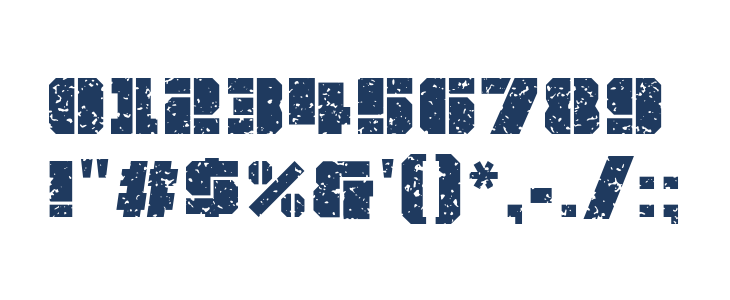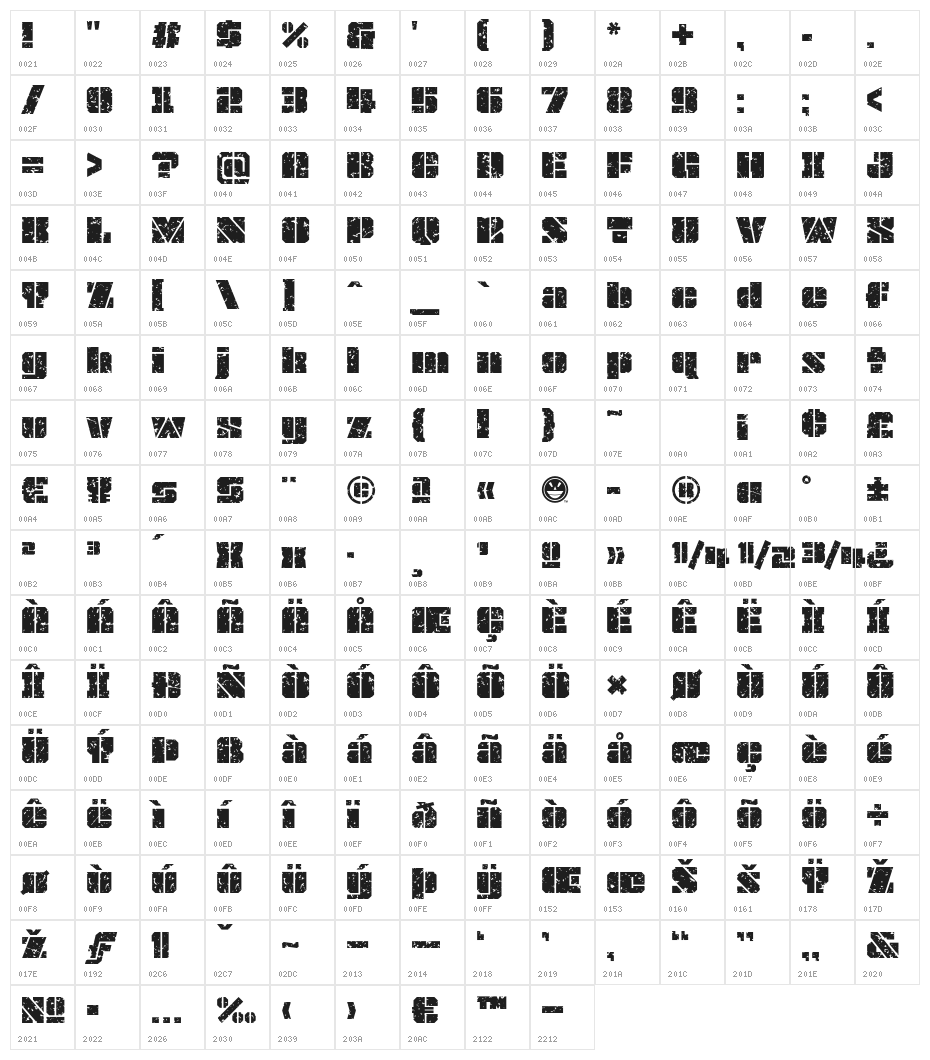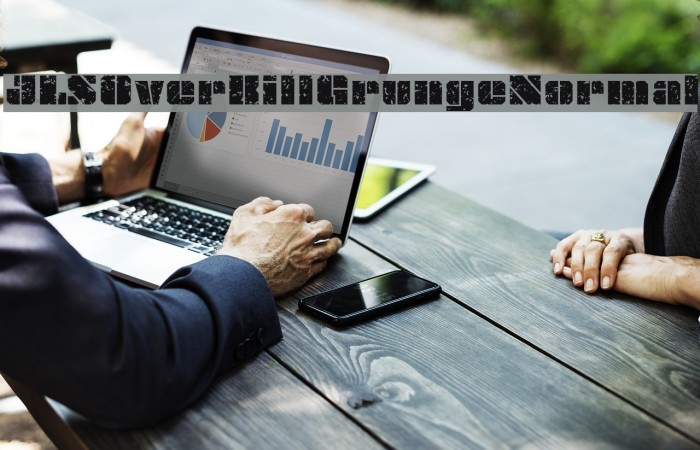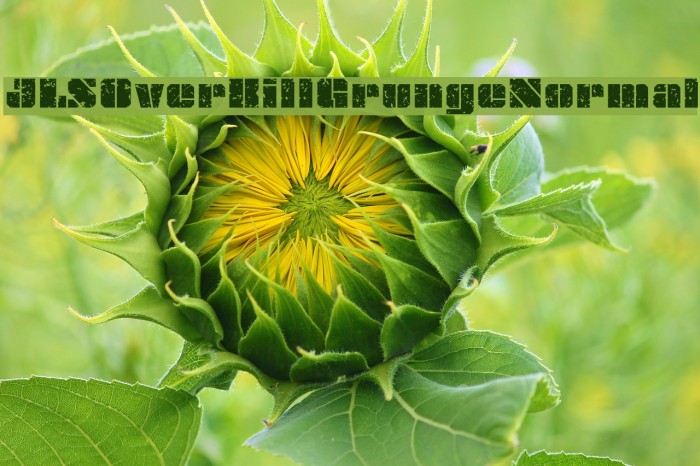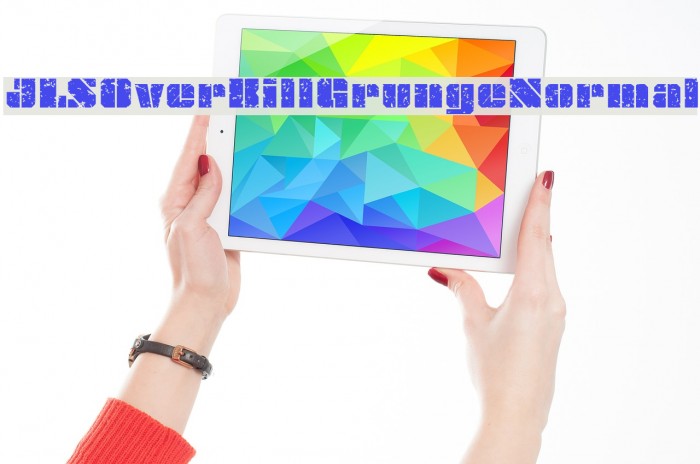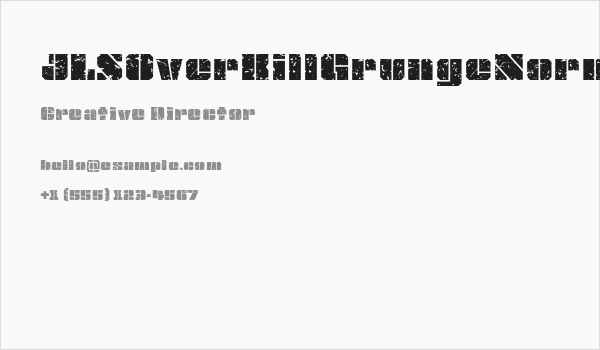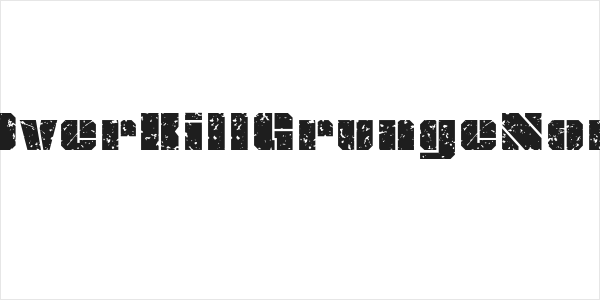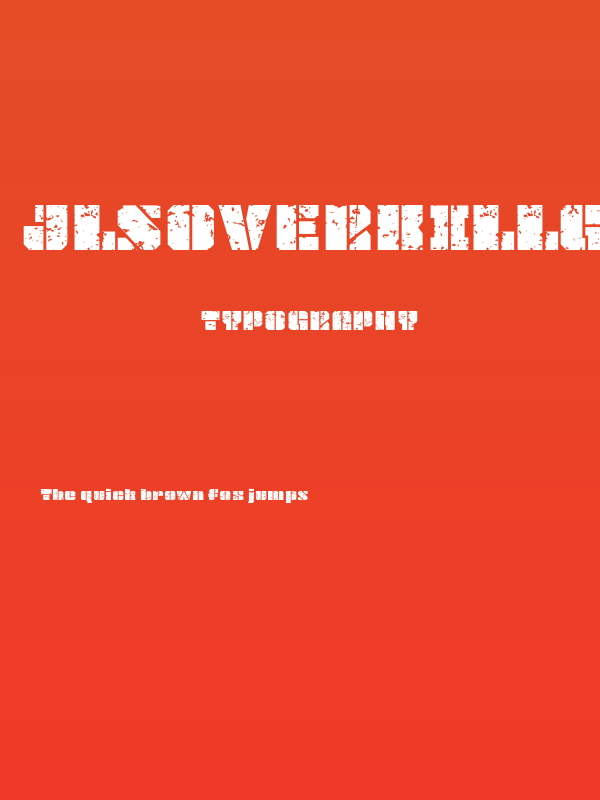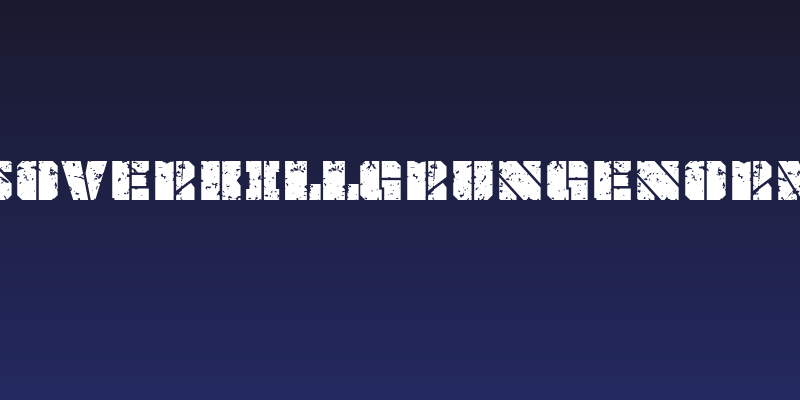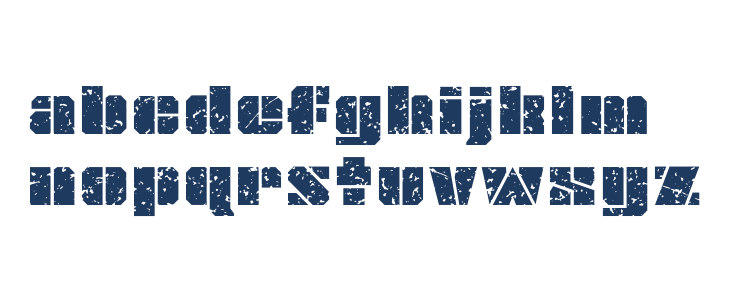
JLSOverKillGrungeNormal Font
JLSOverKillGrungeNormal Description
This font features a bold, distressed style with a grunge aesthetic. The characters are heavily textured, giving them a worn and rugged appearance. The uppercase and lowercase letters maintain a consistent width, while the numbers and special characters follow the same distressed pattern. This font is ideal for projects that require a raw, edgy look, such as music album covers, posters, or urban-themed designs. The irregular texture adds a dynamic and energetic feel, making it stand out in any design context.
| Overall Style | Grunge, Edgy |
| Proposed Projects | Ideal for music album covers, posters, urban-themed designs, and any project needing a raw, edgy look. |